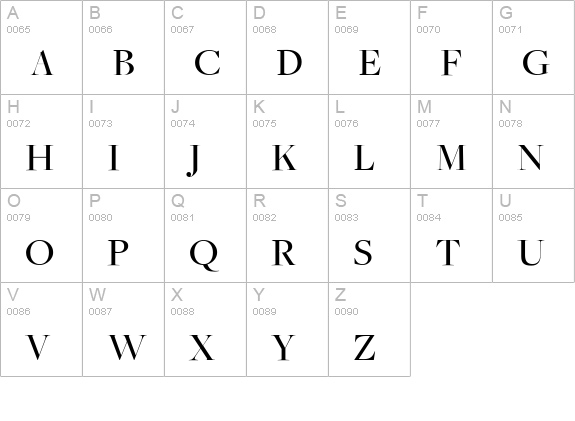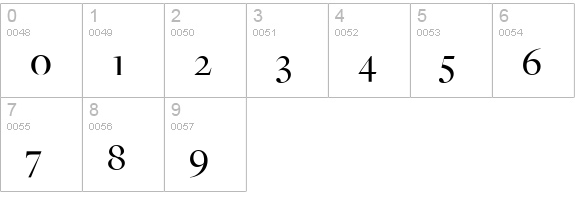
FreightBigMedium Font Details
FreightBigMedium font is a versatile and robust typeface designed for both display and text use. With its bold and impactful appearance, this font is perfect for creating eye-catching headlines, posters, and branding materials. The FreightBigMedium font strikes the perfect balance between modernity and timelessness, making it suitable for a wide range of design projects. What's even better is that FreightBigMedium font is available for free download at FontsMarket.com. This means that you can easily access and use this high-quality font in your projects without any cost. Don't miss out on the opportunity to enhance your designs with the striking and professional look of FreightBigMedium font - download it now and take your creations to the next level!